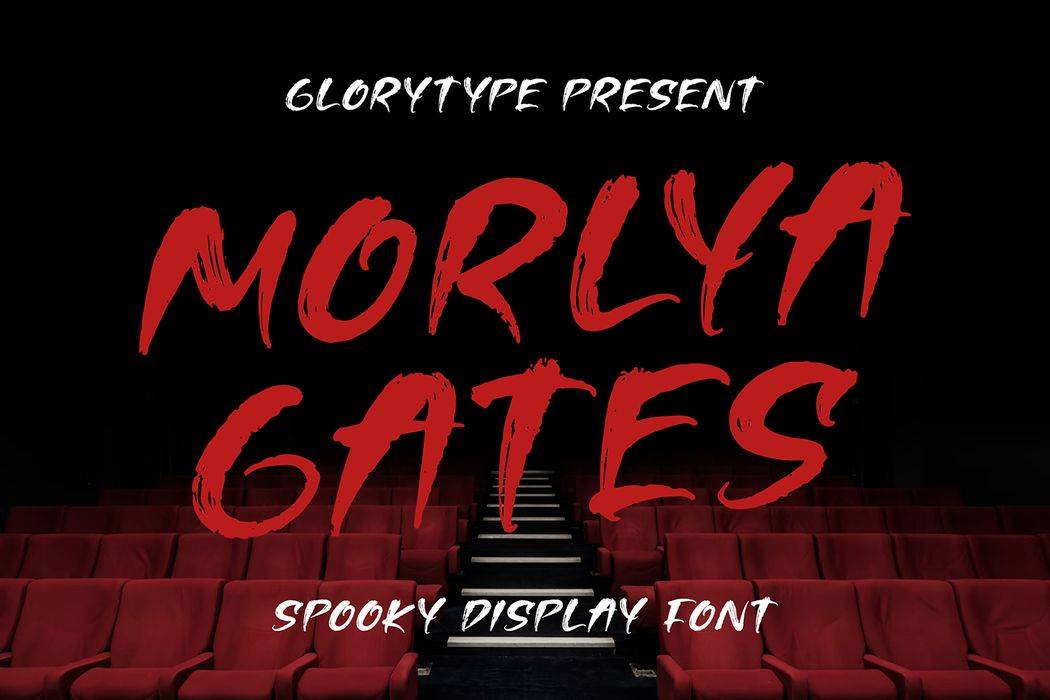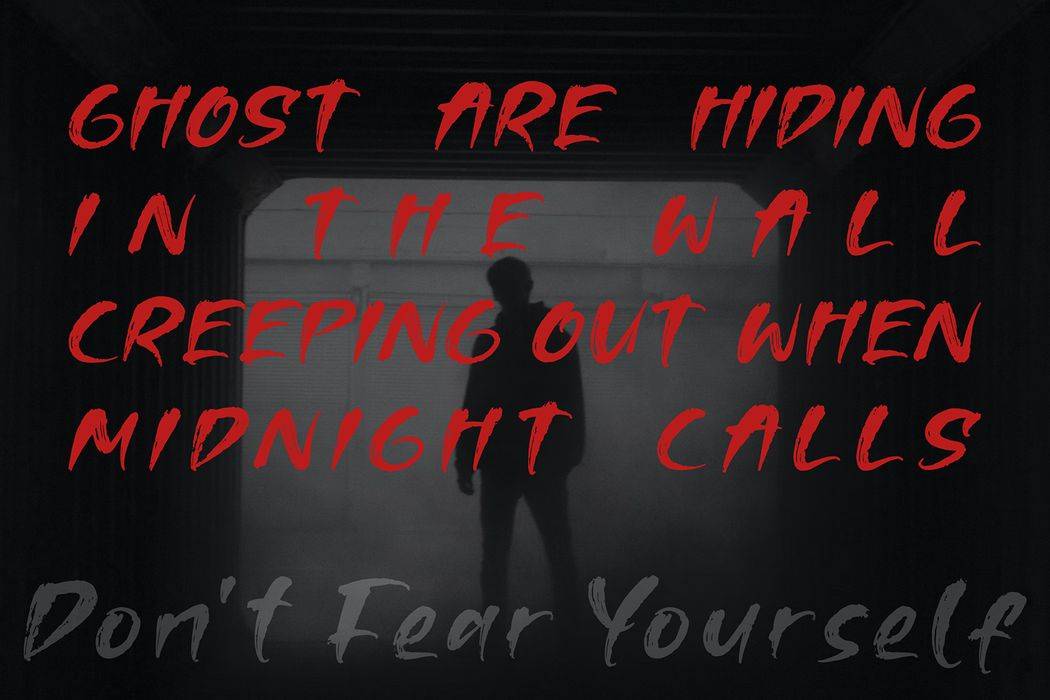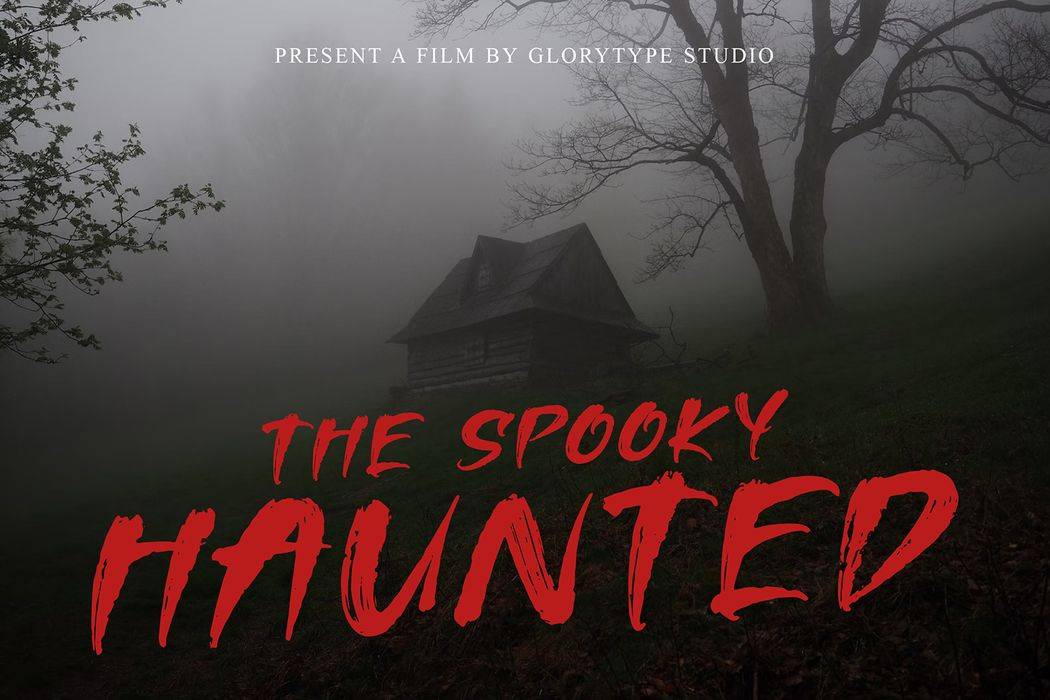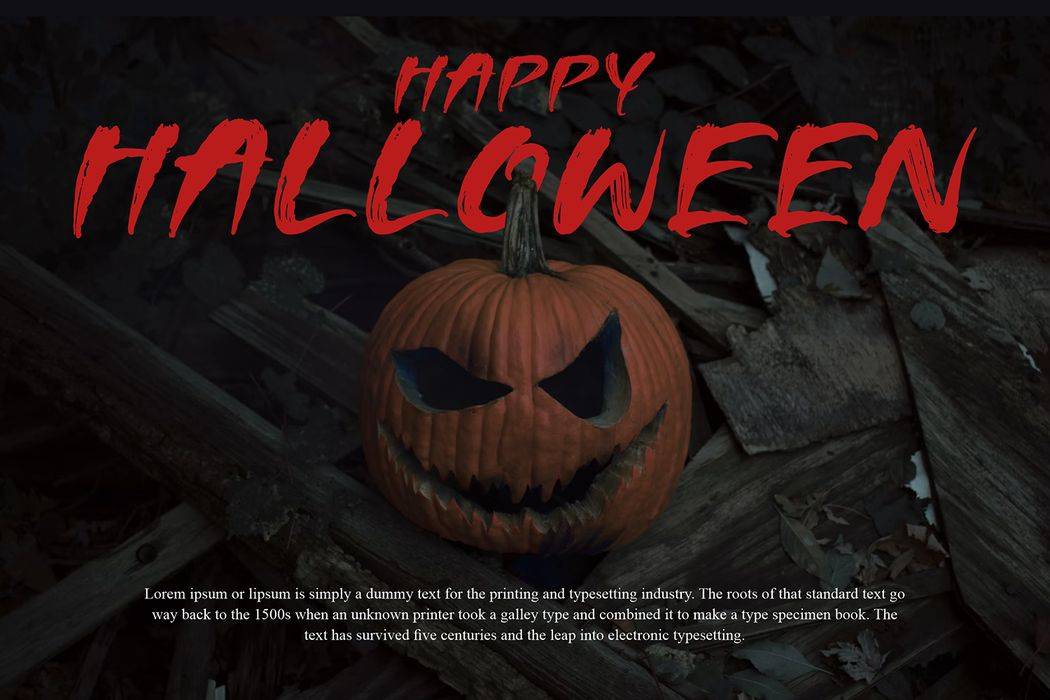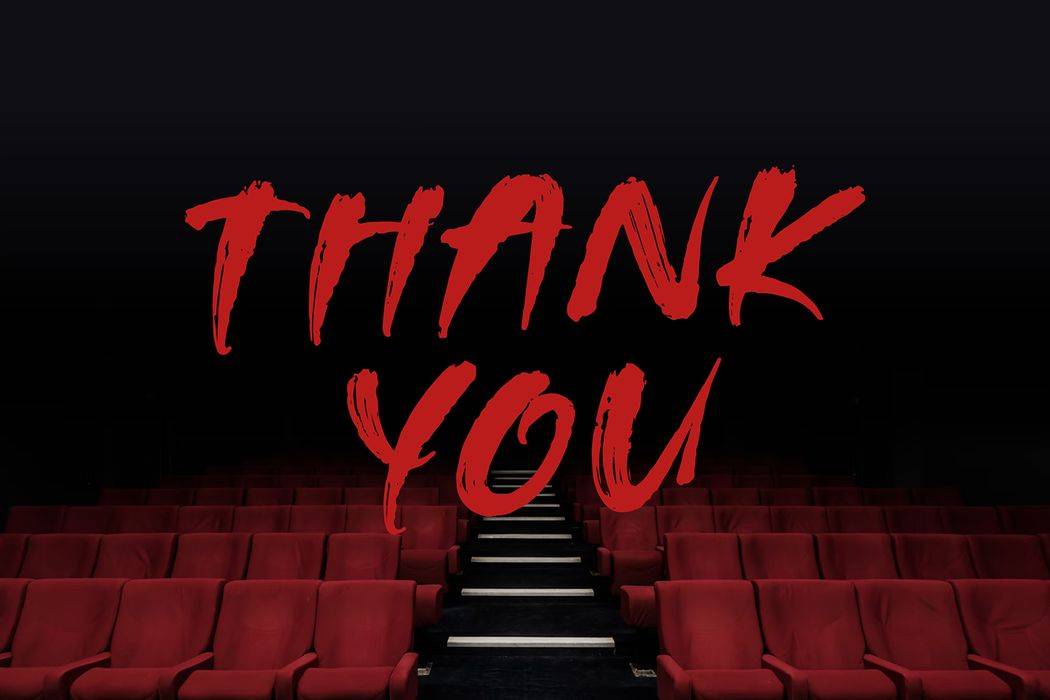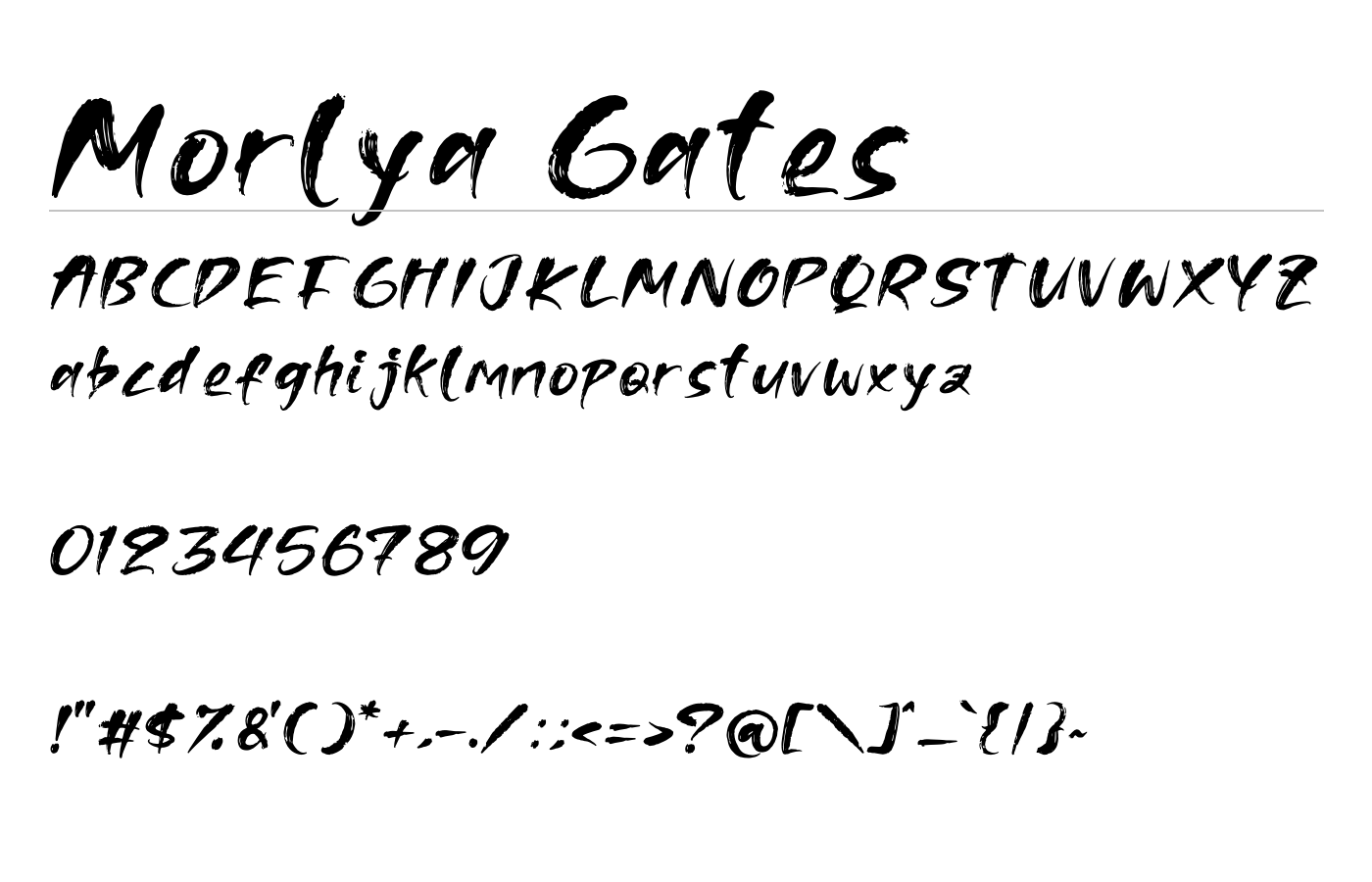
Morlya Gates is a bold, brush-script font with a lively, hand-painted texture that adds a dynamic and artistic feel to any design. Its irregular strokes and casual letterforms make it perfect for creative projects, branding, and headlines that need a personal, expressive touch. This font works especially well for posters, invitations, and trendy lifestyle or fashion brands aiming to convey energy and individuality.
Morlya Gates Font
About Morlya Gates Font